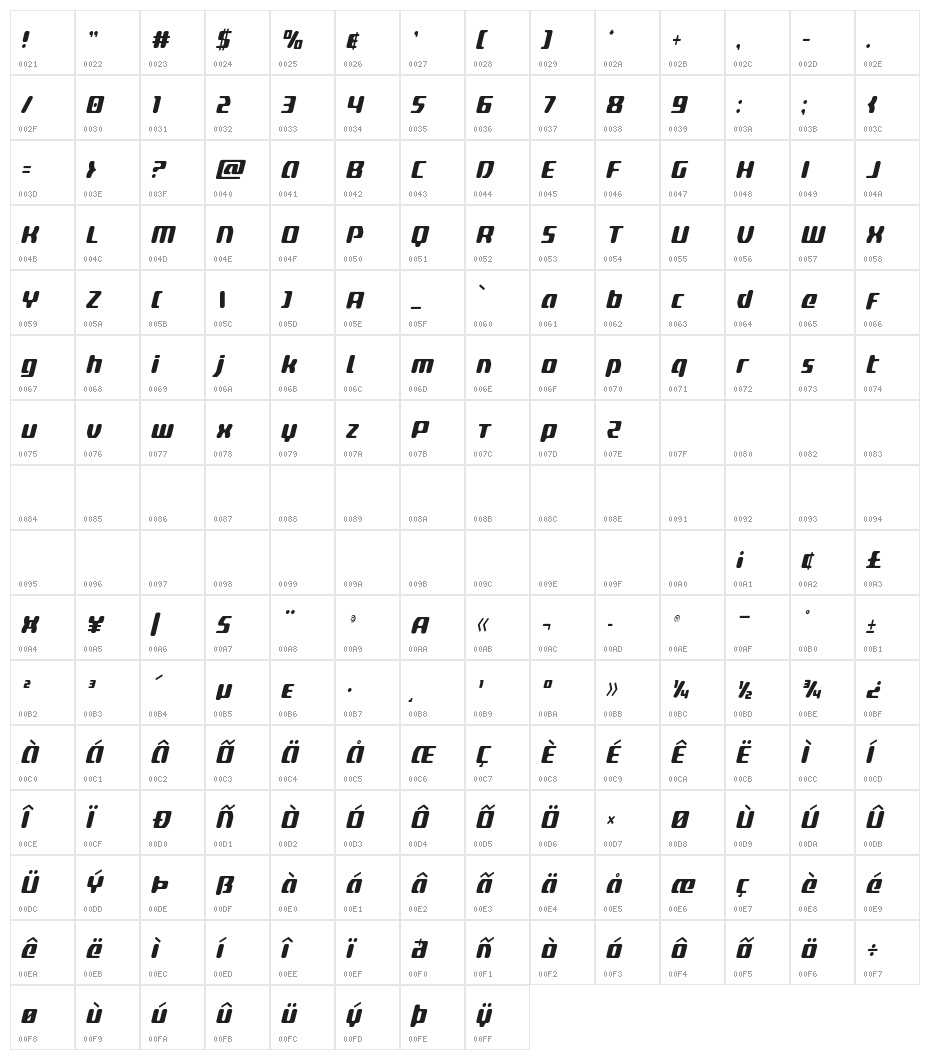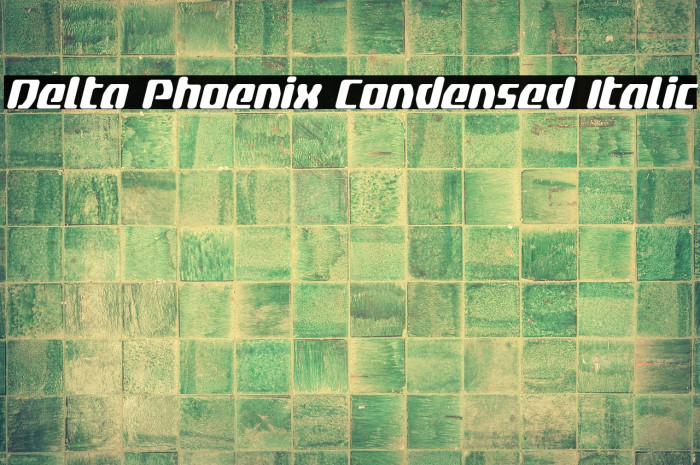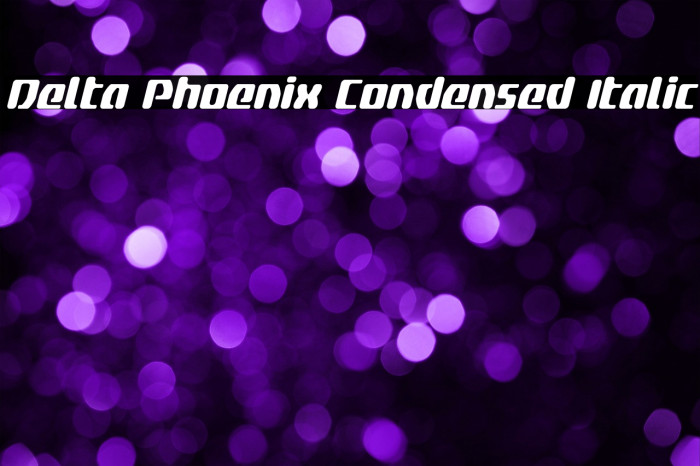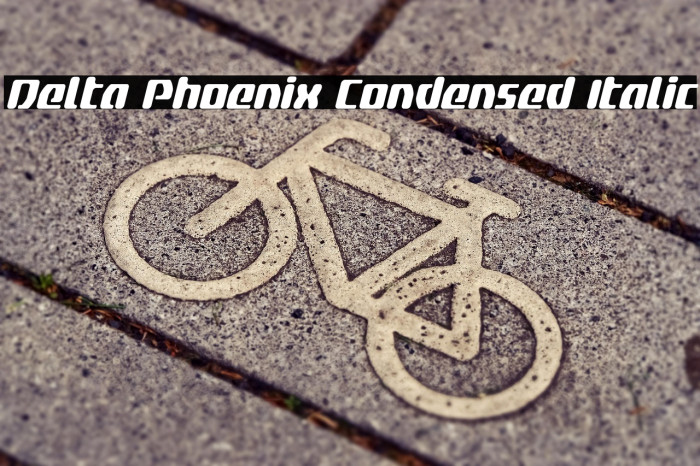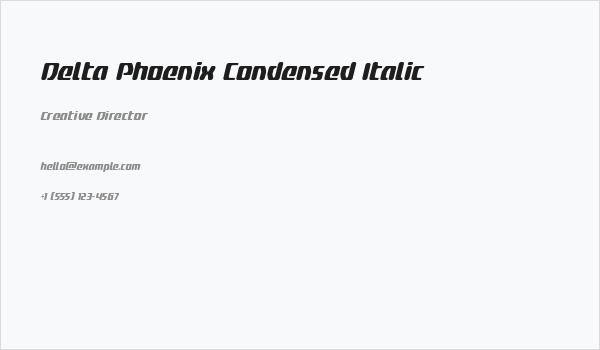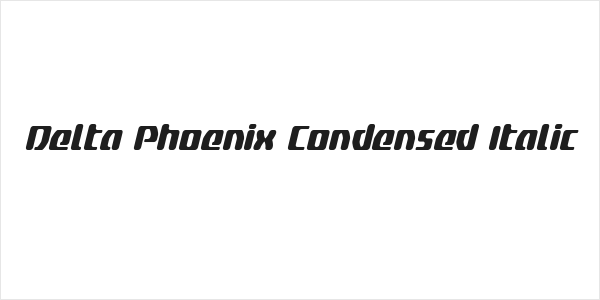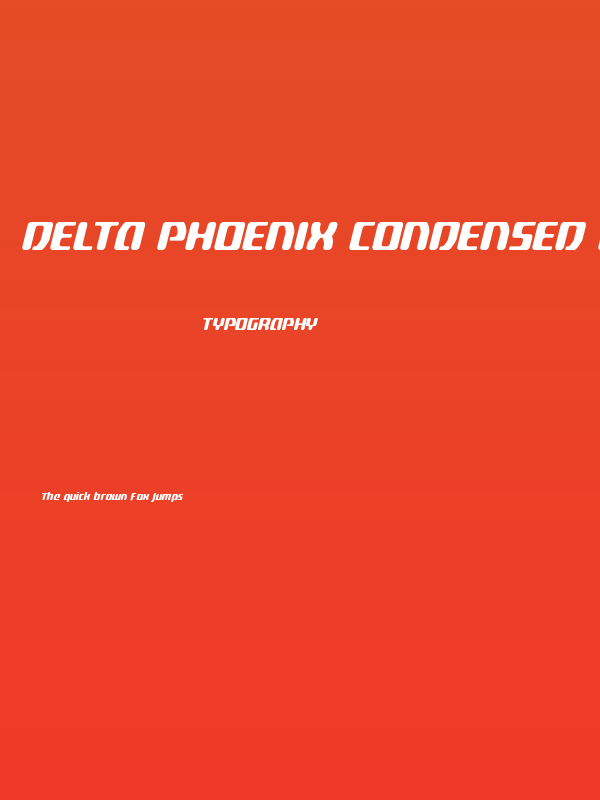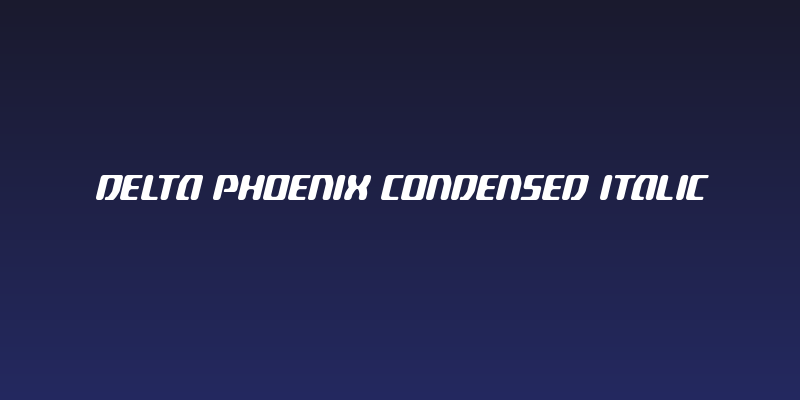
Delta Phoenix Condensed Italic Font
Delta Phoenix Condensed Italic Description
This font features a bold and dynamic style with a condensed and italicized form. The characters are designed with a forward-leaning slant, giving a sense of motion and urgency. The strokes are thick and consistent, providing a strong visual impact. The uppercase and lowercase letters maintain a uniform appearance, while the numbers and special characters complement the overall aesthetic. The font's condensed nature allows for efficient use of space, making it suitable for various design applications. Its modern and sleek design is ideal for projects that require a contemporary and energetic look.
| Proposed Projects | Ideal for sports branding, dynamic posters, modern advertisements, and tech-related designs. |